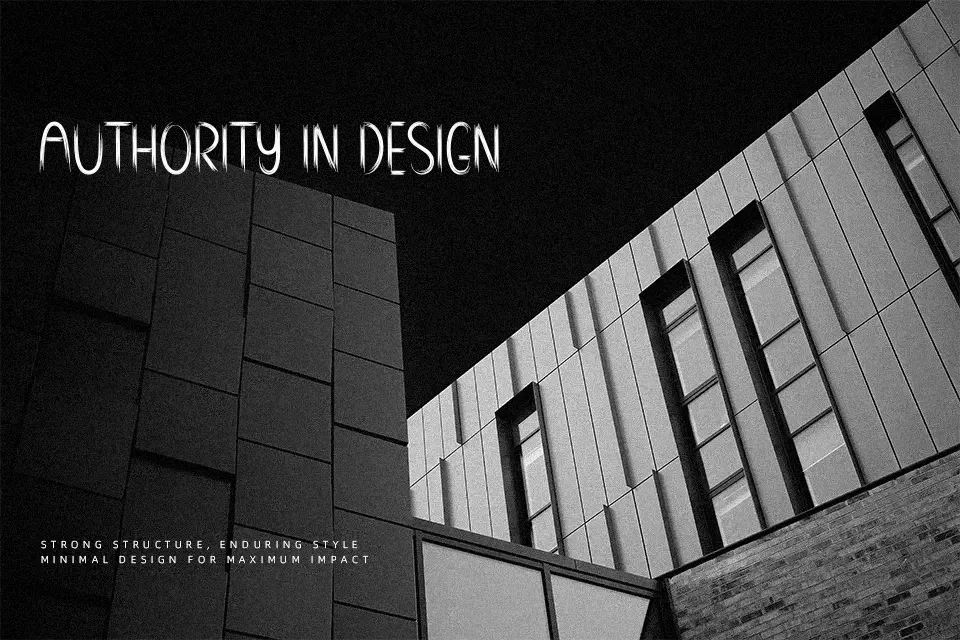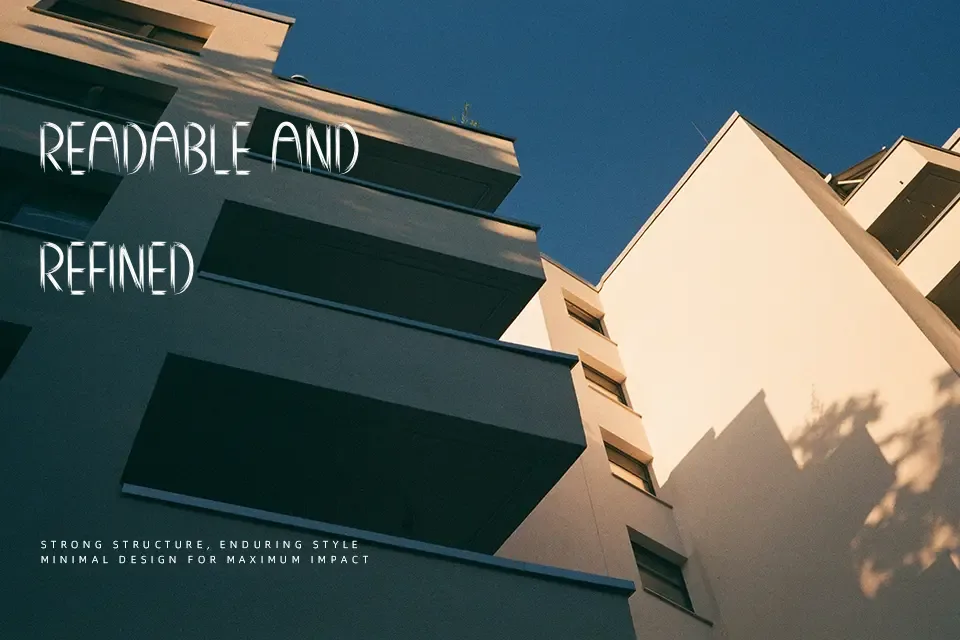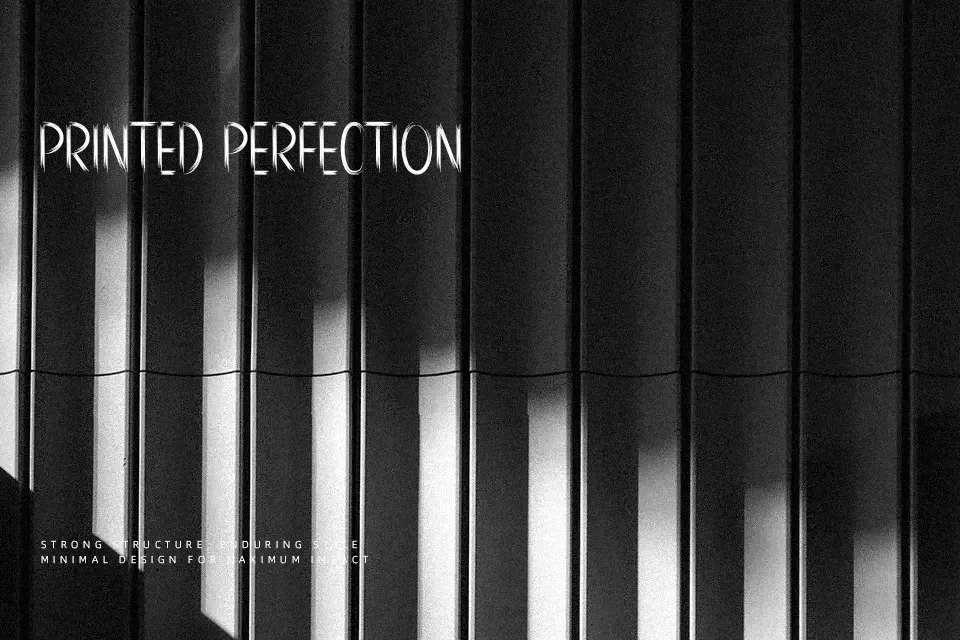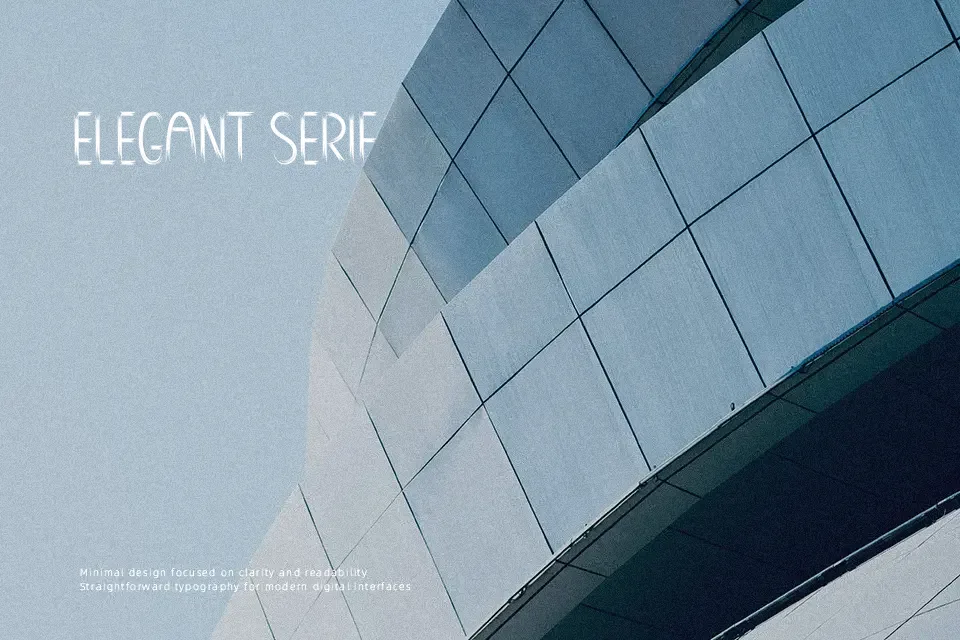
Vampir Font
Vampir Font commands attention with aggressive, distressed display contours and sharply tapered terminals across its letterforms. The typeface features moderate stroke contrast alongside tightly spaced proportions, producing an intense and chaotic rhythm suited for large headlines. While these erratic outlines provide strong visual punch in oversized poster titles and horror event branding, the dense details become difficult to discern at small text sizes. The design performs effectively when limited to short display copy, but it is less suitable for continuous body paragraphs where regularized geometry is essential for comfortable reading.
halloween event posters
horror video game titles
dark themed packaging
movie headline graphics
continuous paragraph reading
legal contracts
mobile ui body text
small label captions
Perfect for gaming, halloween, and headline, with a dark and decorative style.